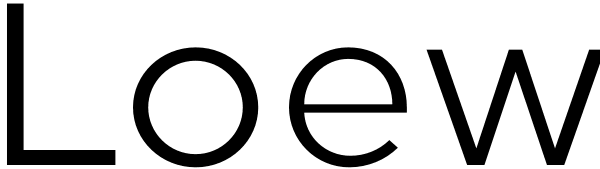
Loew
Loew is a geometric sans serif font influenced by the methods of the early industrial designers. Pure mechanical shapes are carefully adjusted to give the characters the right form, function and usability. These subtle human touches combined with...